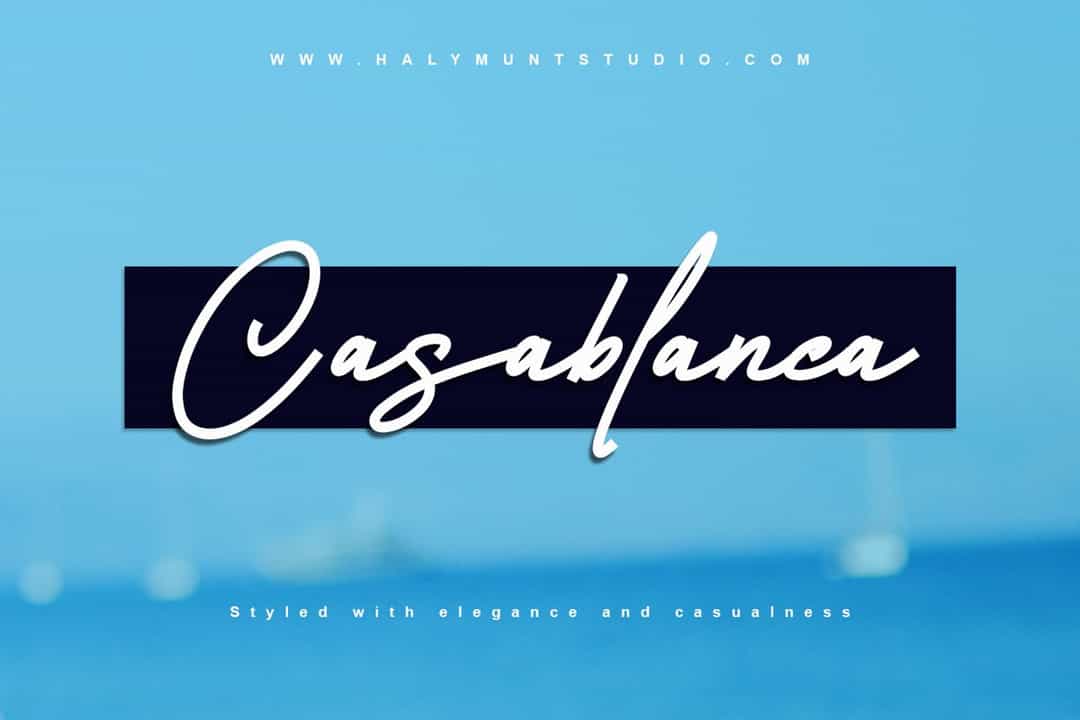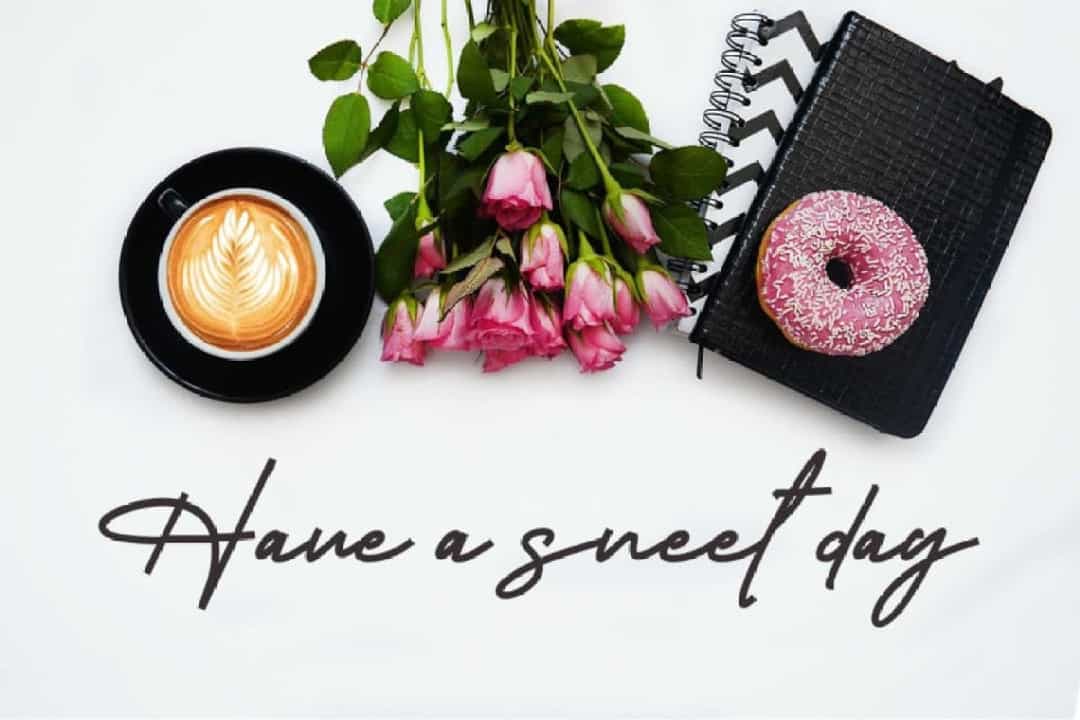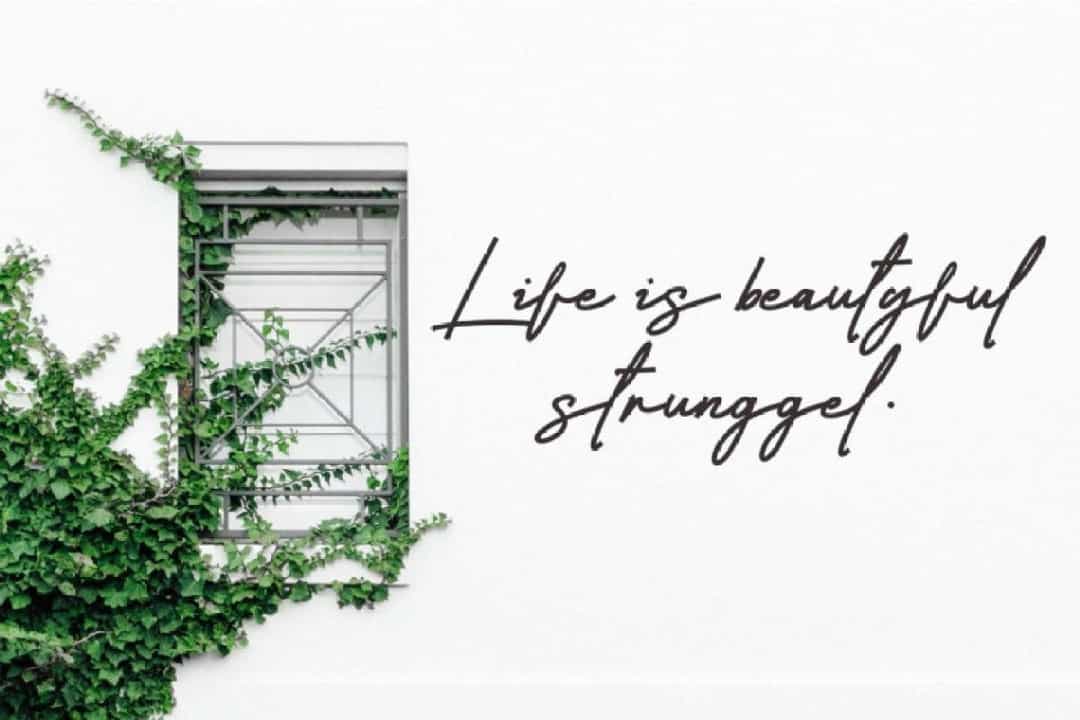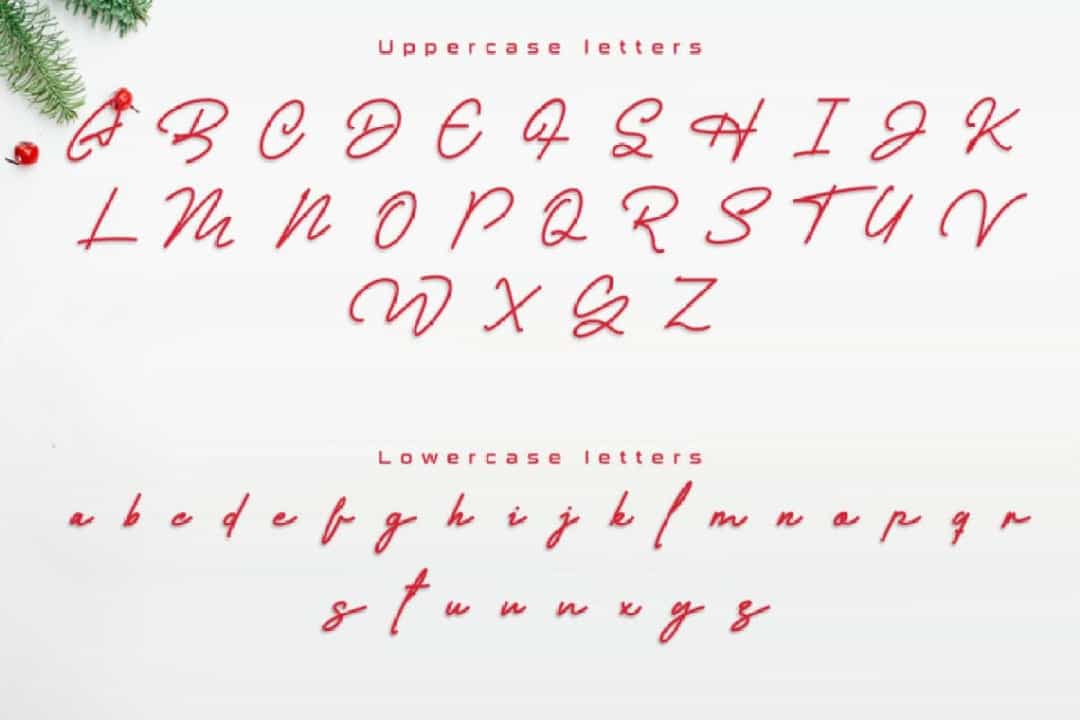
Discover Casablanca Monoline Signature Script Font, part of the Handwritten Script Monoline collection—a versatile and unique font perfect for adding a personal touch to your projects. Download it for free and enjoy crafting designs with style, from invitations to social media posts. This font is available exclusively for personal use, giving you the freedom to create without limits. Unlock your creativity with Casablanca Monoline Signature Script Font today!
Casablanca is a monoline style font that is modern, elegant, classy and natural; resembles handwritten fonts. Suitable for any style, to advertise the business, enhance websites or magazines design, digital signatures, photo texts, social media posts, etc.